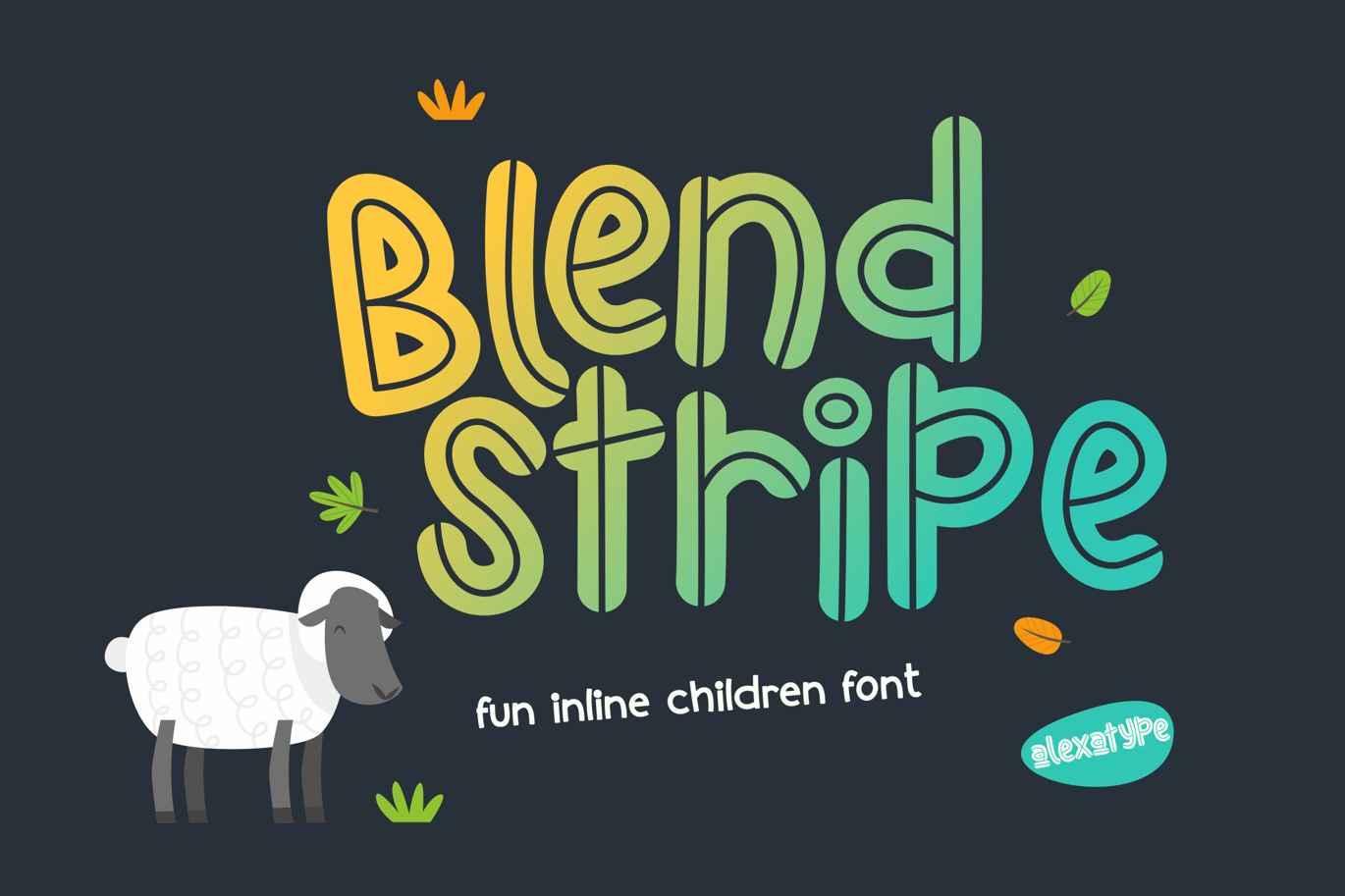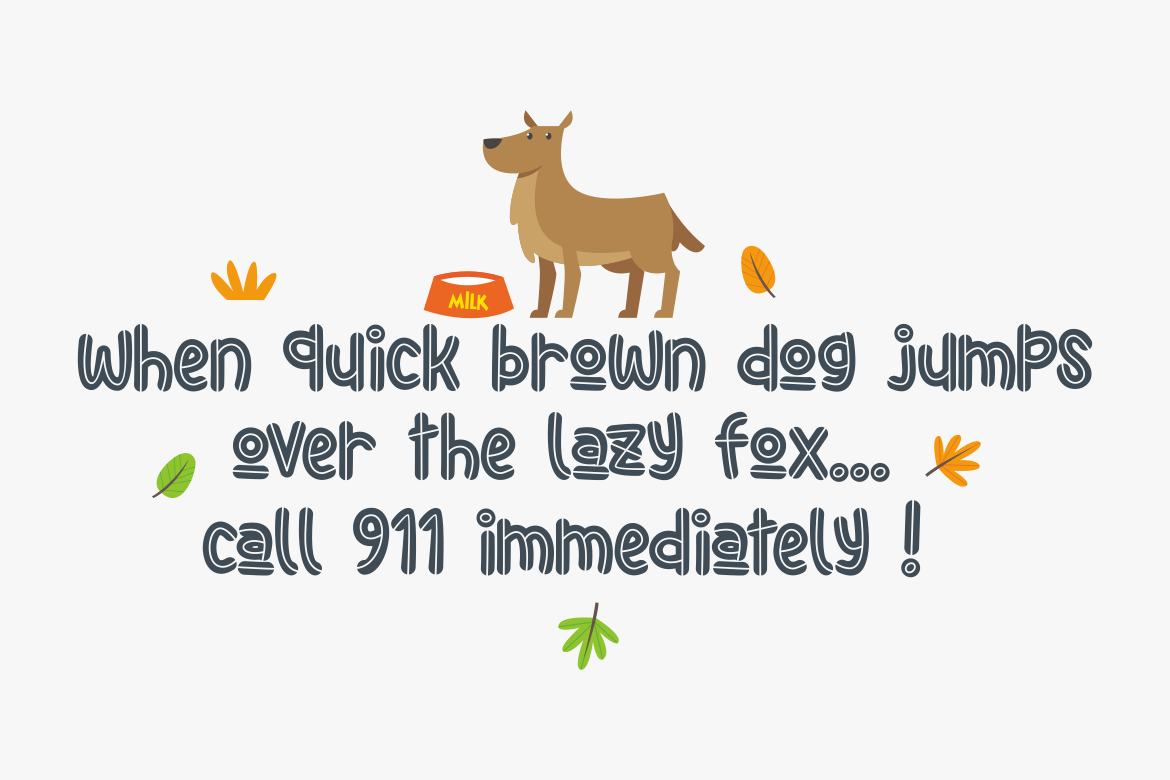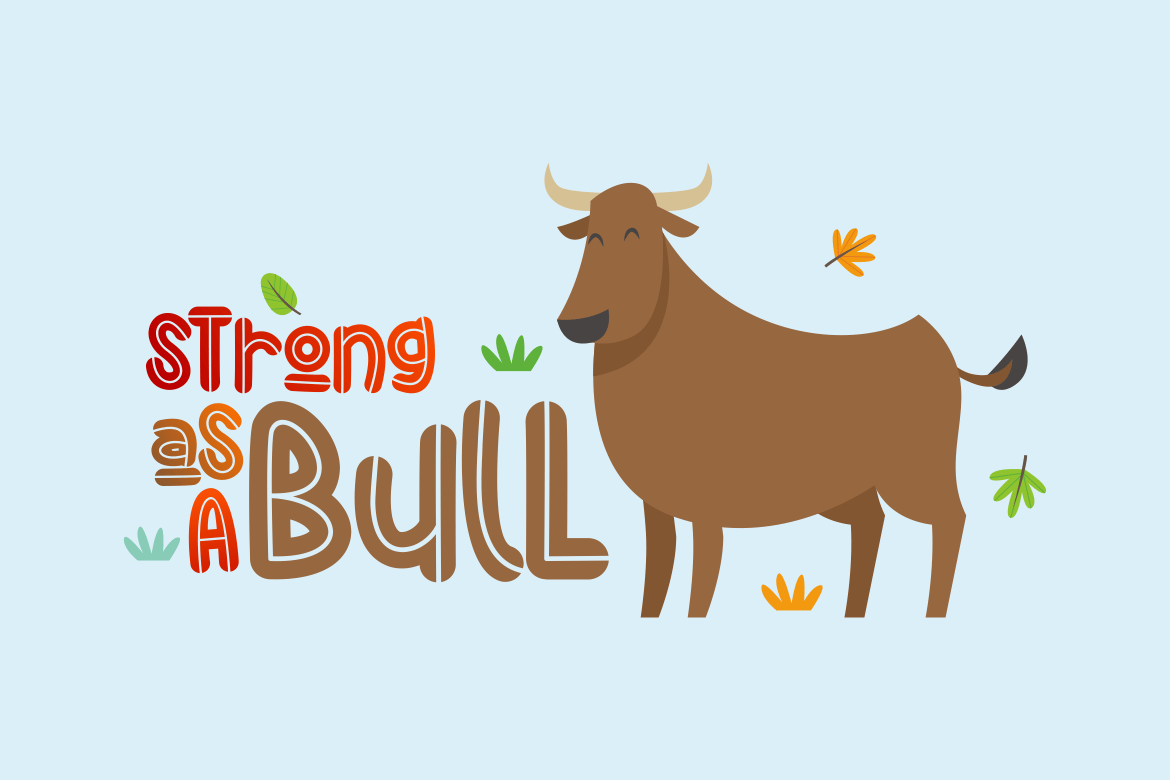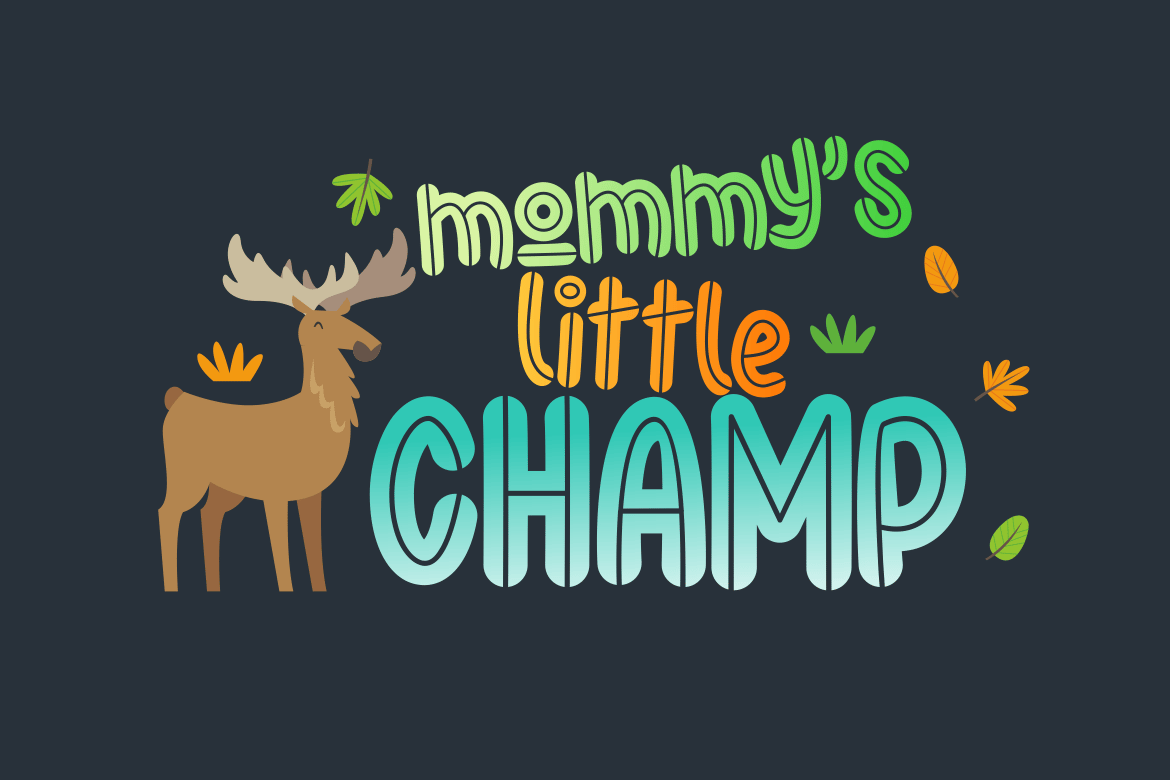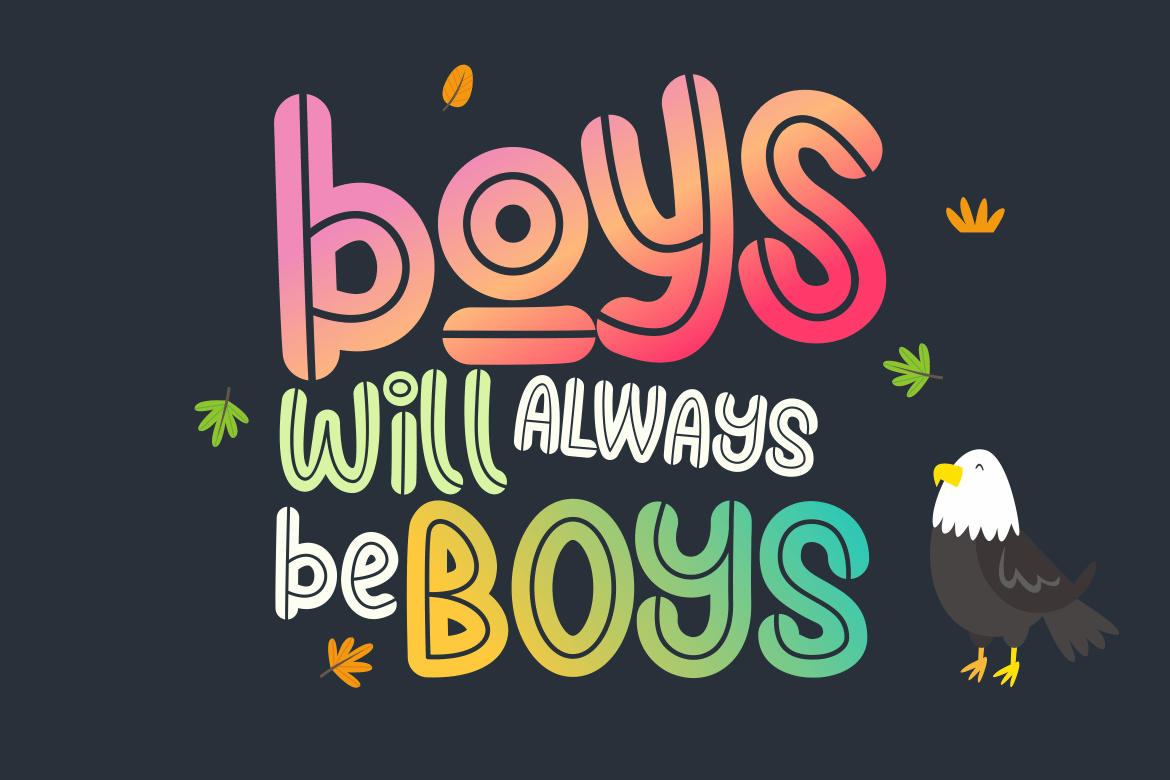
Playful & Whimsical Font – Blend Stripe
Blend Stripe is a fun, bouncy, and vibrant display font designed to bring playfulness and energy to any design. With its hand-drawn feel and quirky letterforms, this font is perfect for children’s books, playful branding, fun packaging, and creative posters. Whether you’re working on kids’ apparel, educational materials, or storybook titles, Blend Stripe makes sure your designs radiate happiness and excitement.
- Hand-Drawn & Playful Style – Brings a friendly, natural feel to any design.
- Perfect for Kids’ Content & Learning Materials – Ideal for storybooks, educational posters, and school projects.
- Fun & Bouncy Letterforms – Adds charm and energy to every text.
- Versatile for Print & Digital Use – Works great for logos, packaging, and social media graphics.
Blend Stripe is ideal for children’s book authors, educators, and brands that focus on fun, youthful audiences. Its handwritten charm makes kids’ learning materials more engaging, while its colorful, playful strokes add personality to branding, toy packaging, and joyful marketing visuals. Whether you’re designing event invitations, classroom posters, or whimsical social media graphics, Blend Stripe ensures your typography feels lighthearted and full of fun.